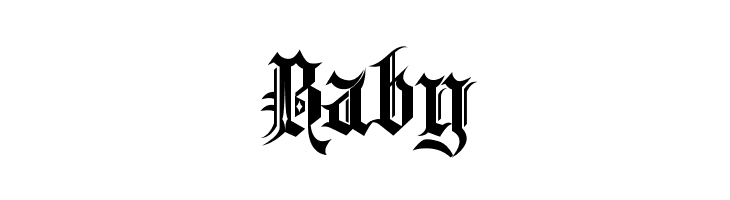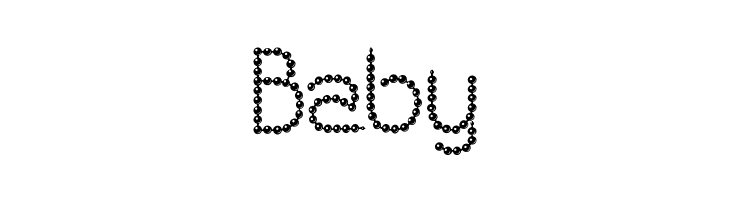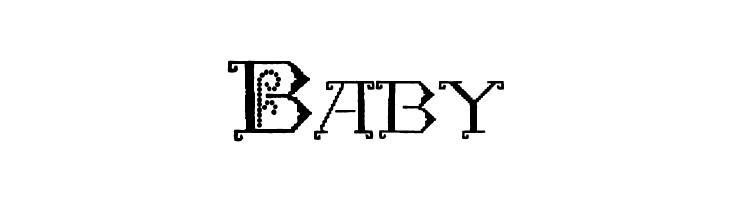
An ornate and decorative font with intricate embroidery-like details.
An ornate and decorative font with intricate flourishes and embellishments.
An ornate and decorative font featuring intricate flourishes and embellishments.
A playful, beaded decorative font with a whimsical aesthetic.
A bold, decorative Gothic-style font with intricate details.
A bold, decorative Blackletter font with intricate medieval styling.
A whimsical and decorative font with playful curves and artistic flair.